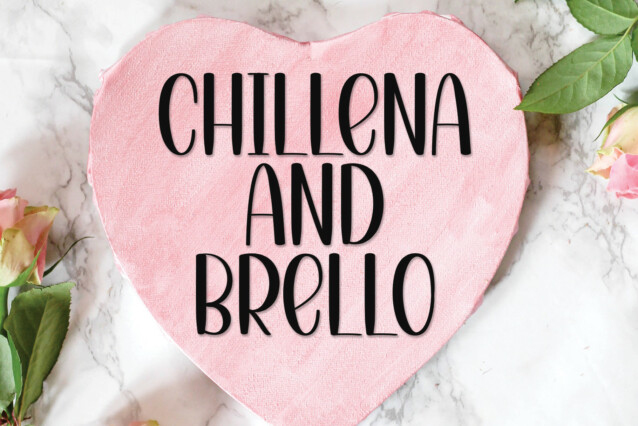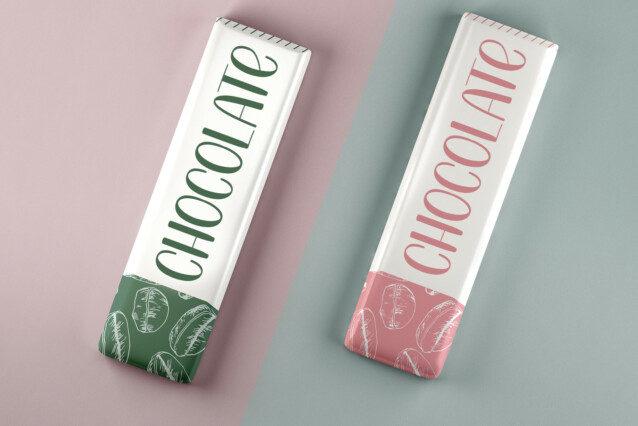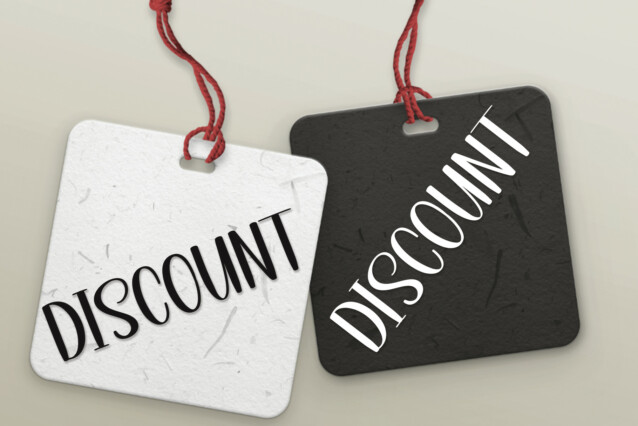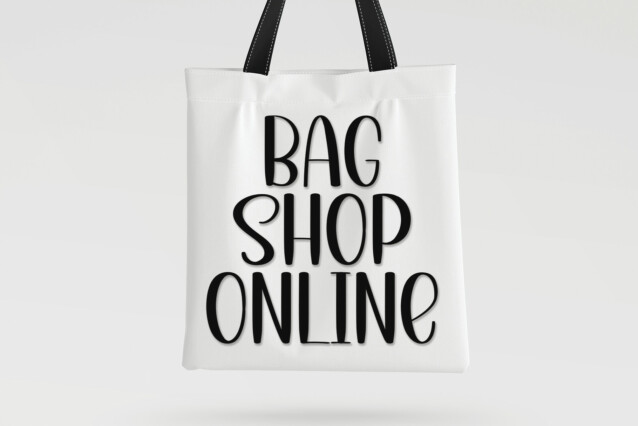
Black Hunter Display Font
Black Hunter Display Font is an incredibly cool display font. With a modern yet whimsical style, this font has the potential to bring each of your creative ideas to the highest level!